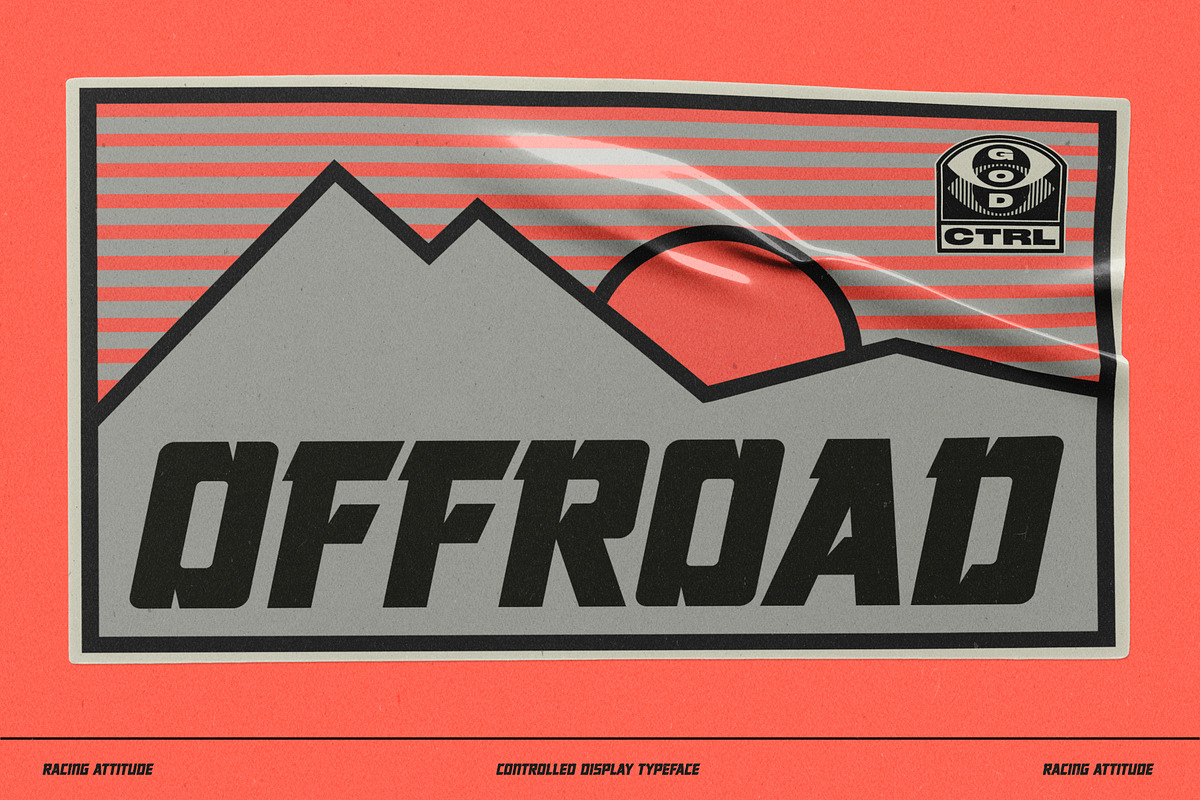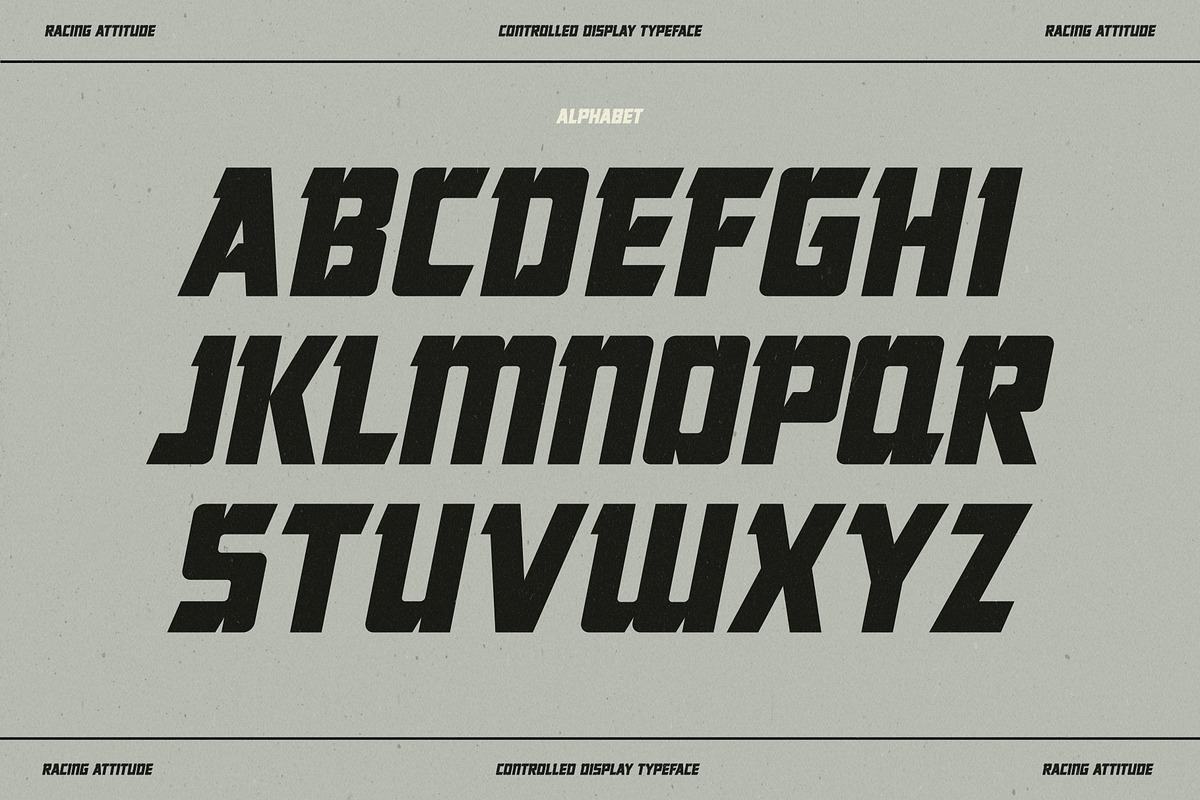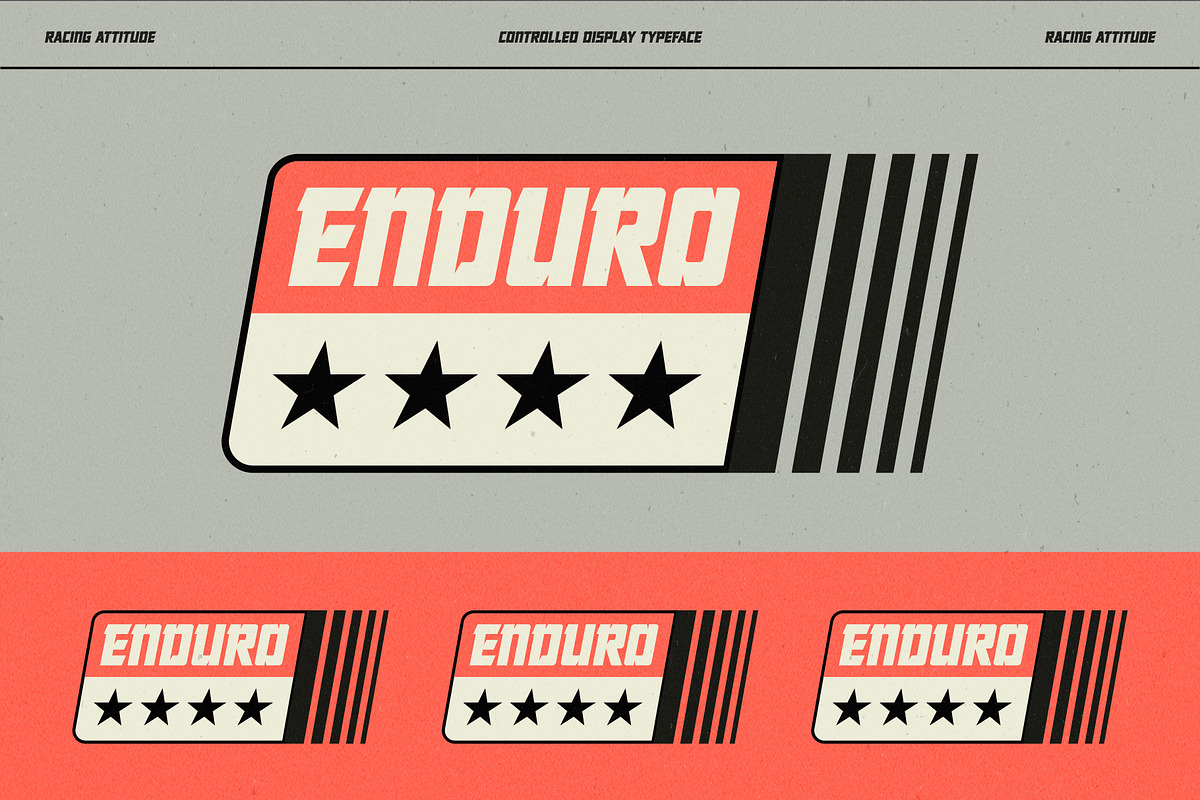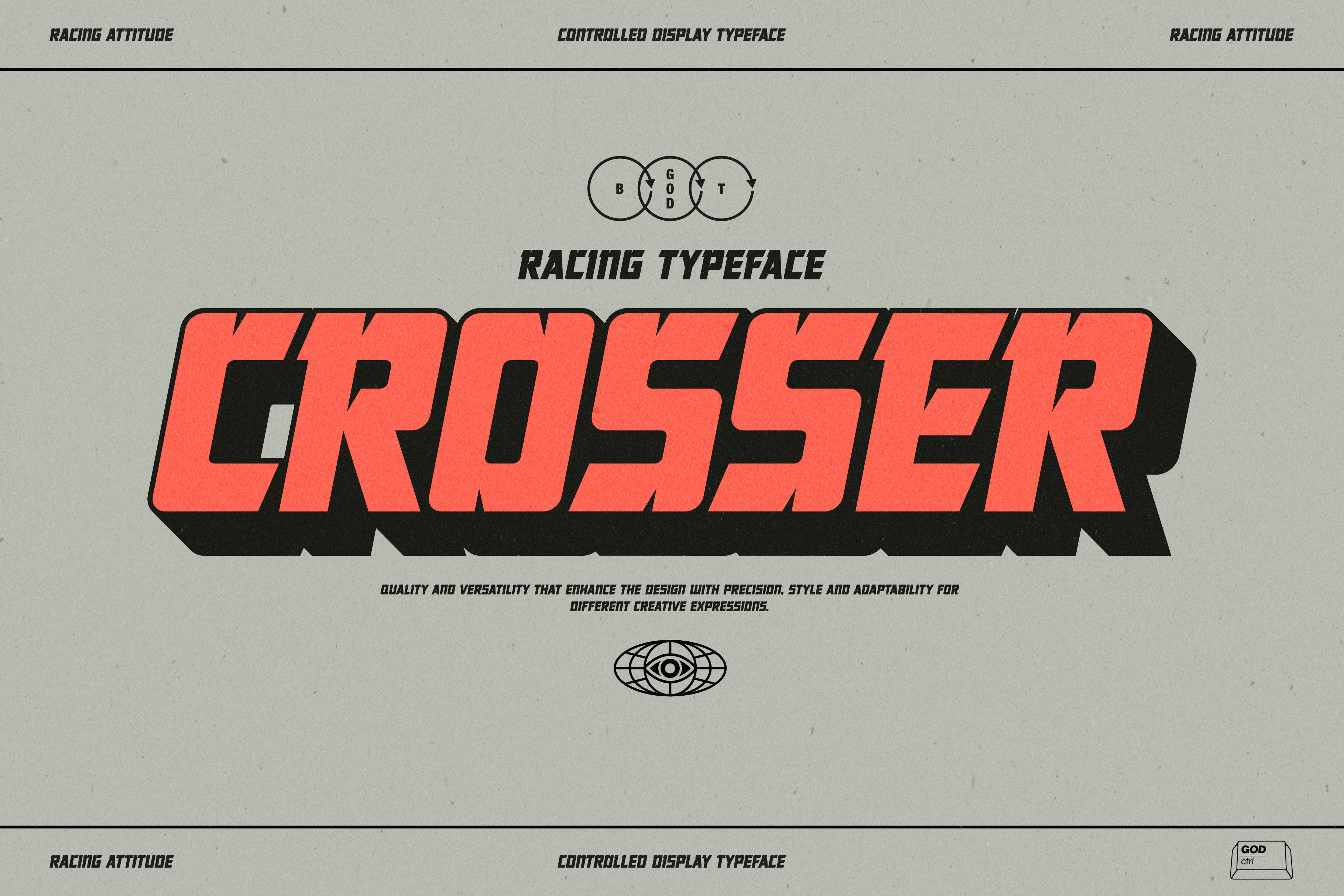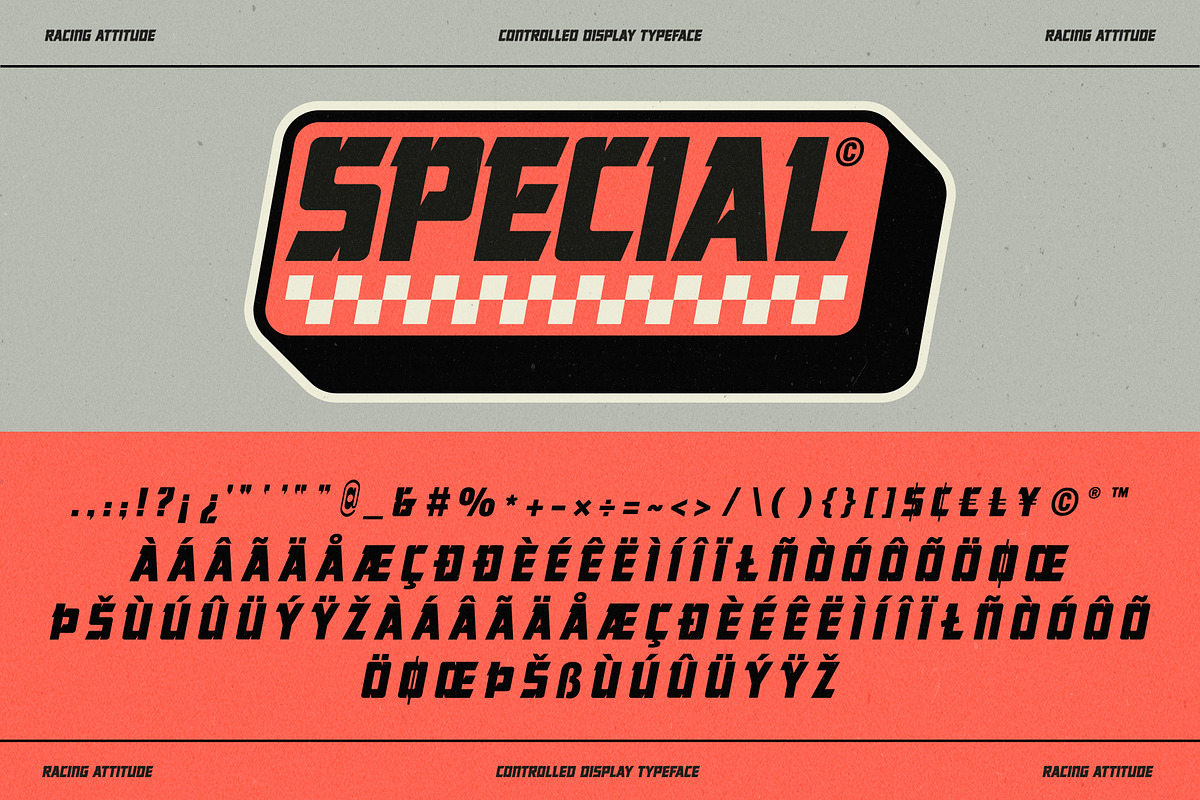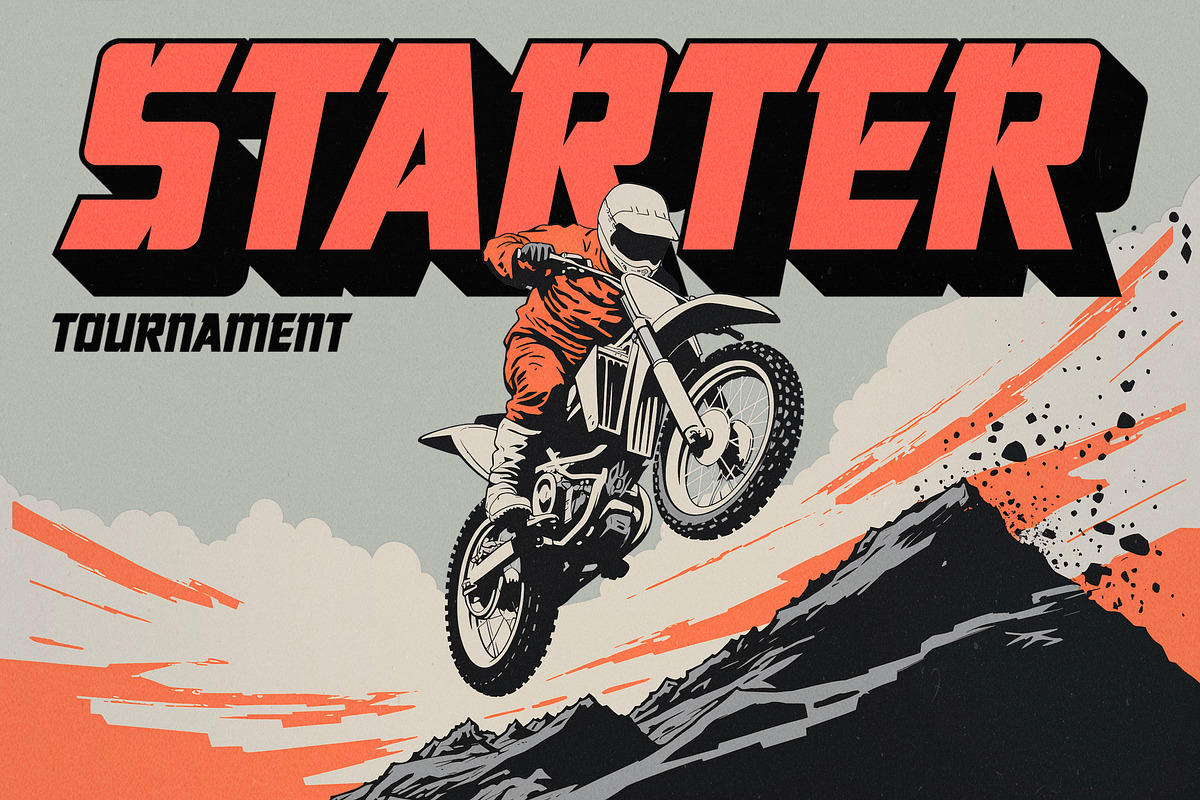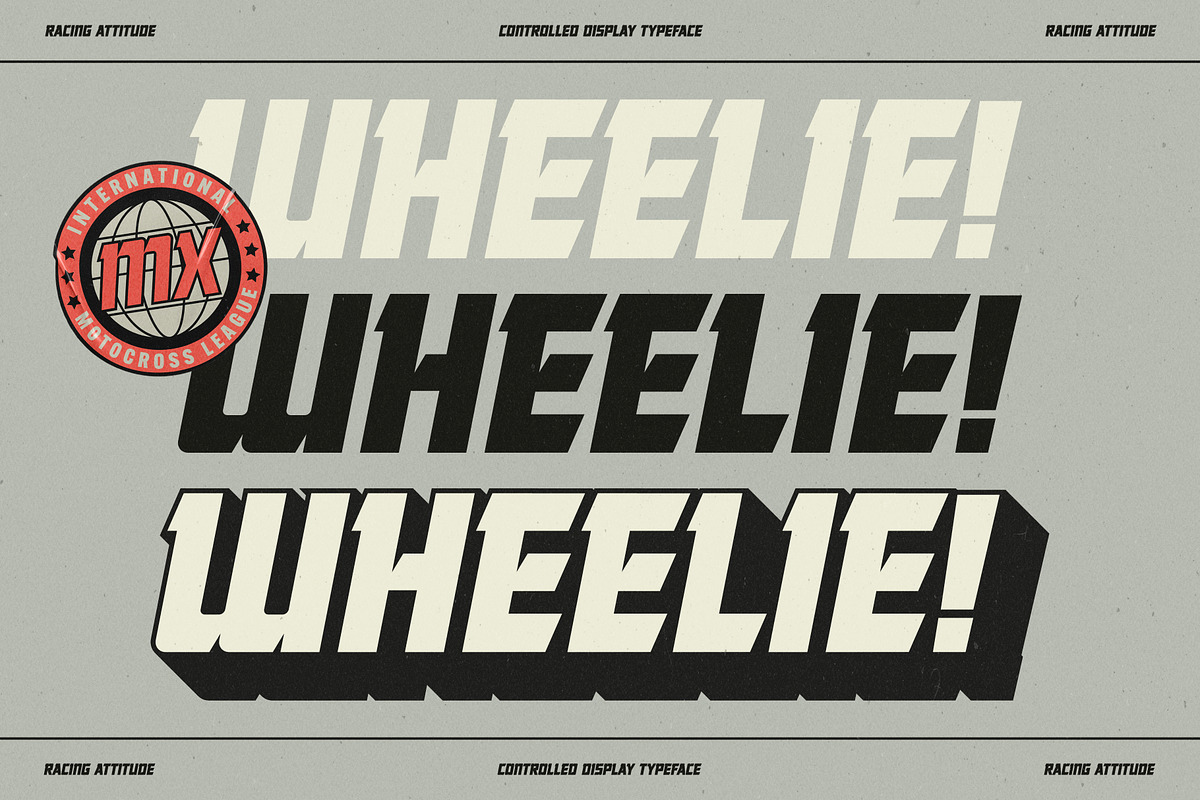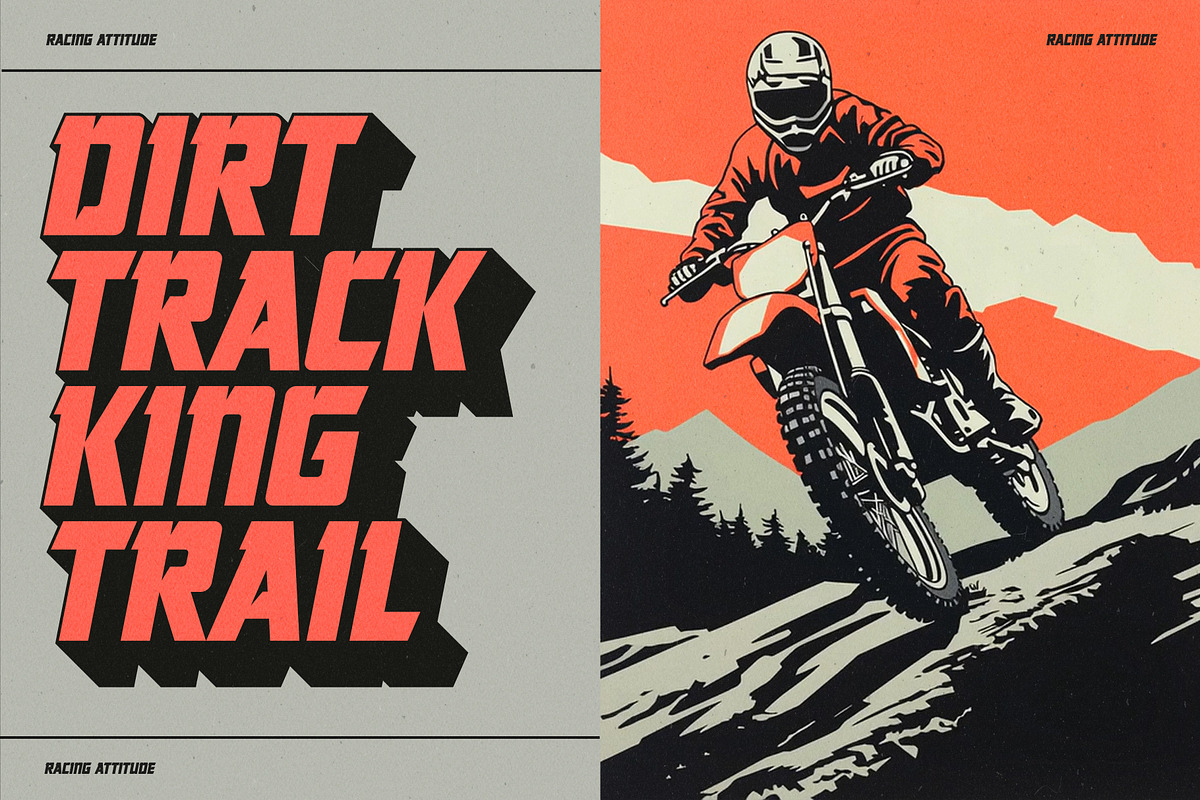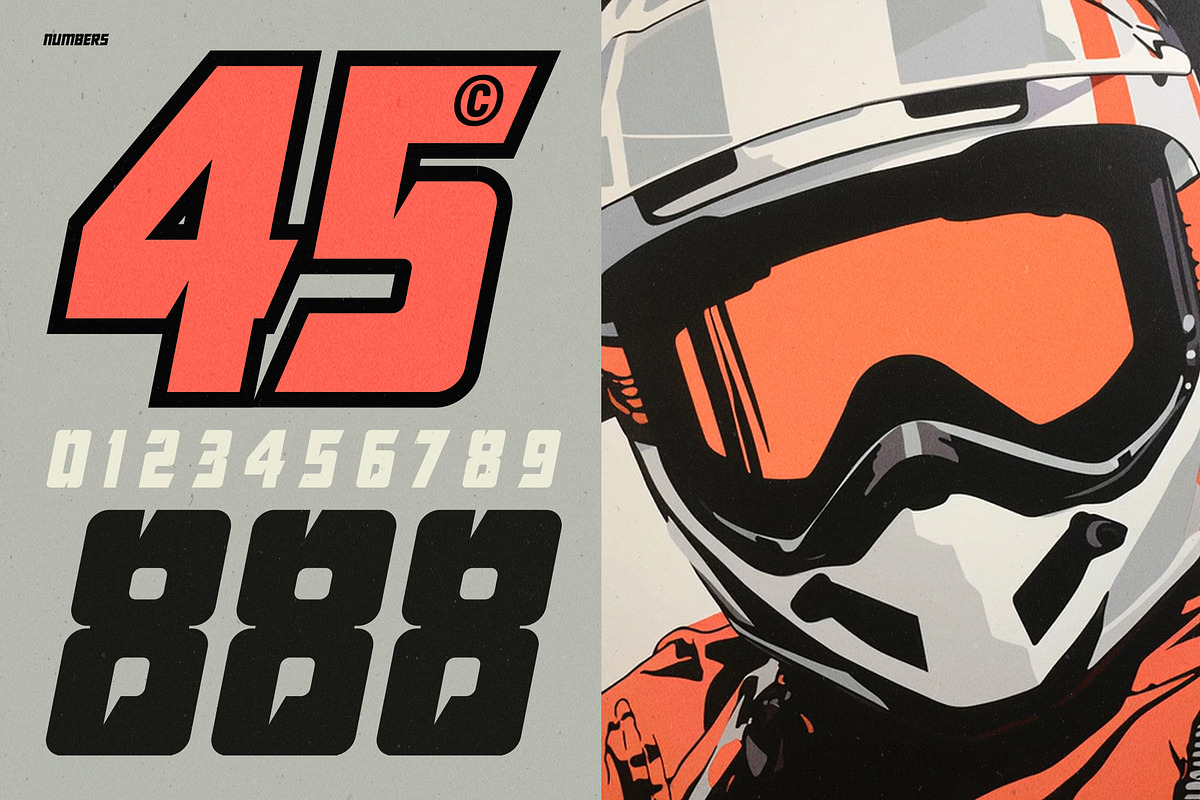
Crosser Display Typeface
Meet Crosser — a bold display typeface made for motion, attitude, and design junkies!
It mixes racing grit and geometric shapes with that perfect mix of retro energy and clean modern geometry. Use it for racing posters, branding, sports graphics, apparel, or anything that needs a heavy dose of energy.
We designed all the letters, numbers, and special characters you need to use it everywhere!
Crosser moves fast, hits hard, and looks great doing it.
- One bold display font
- Special characters and punctuation included
- Built for speed, clarity, and control
- 215 total characters